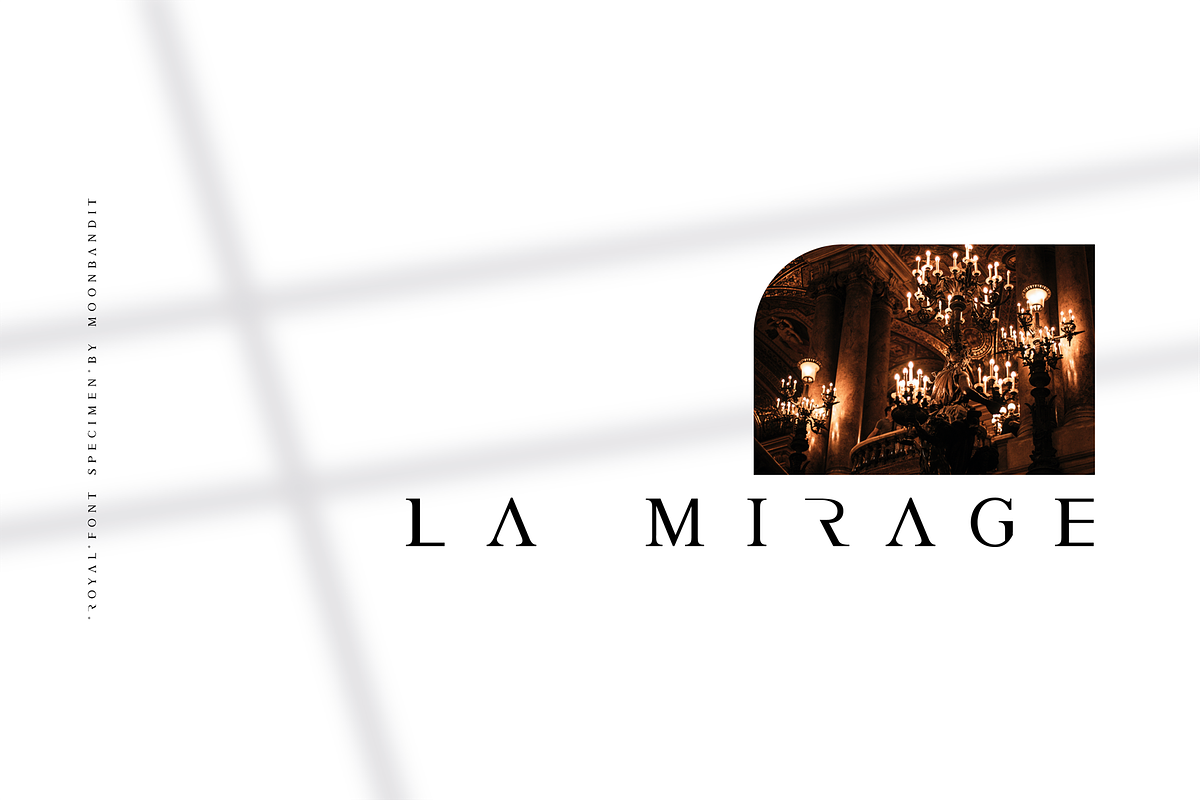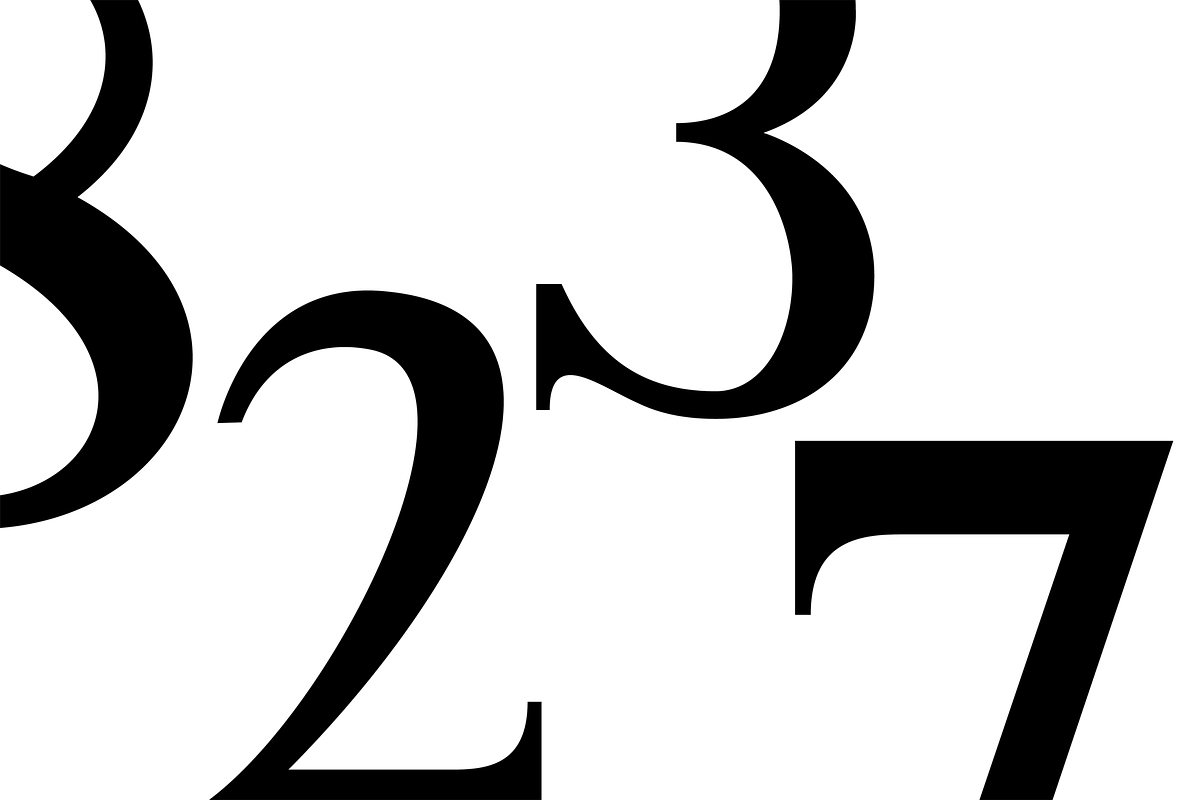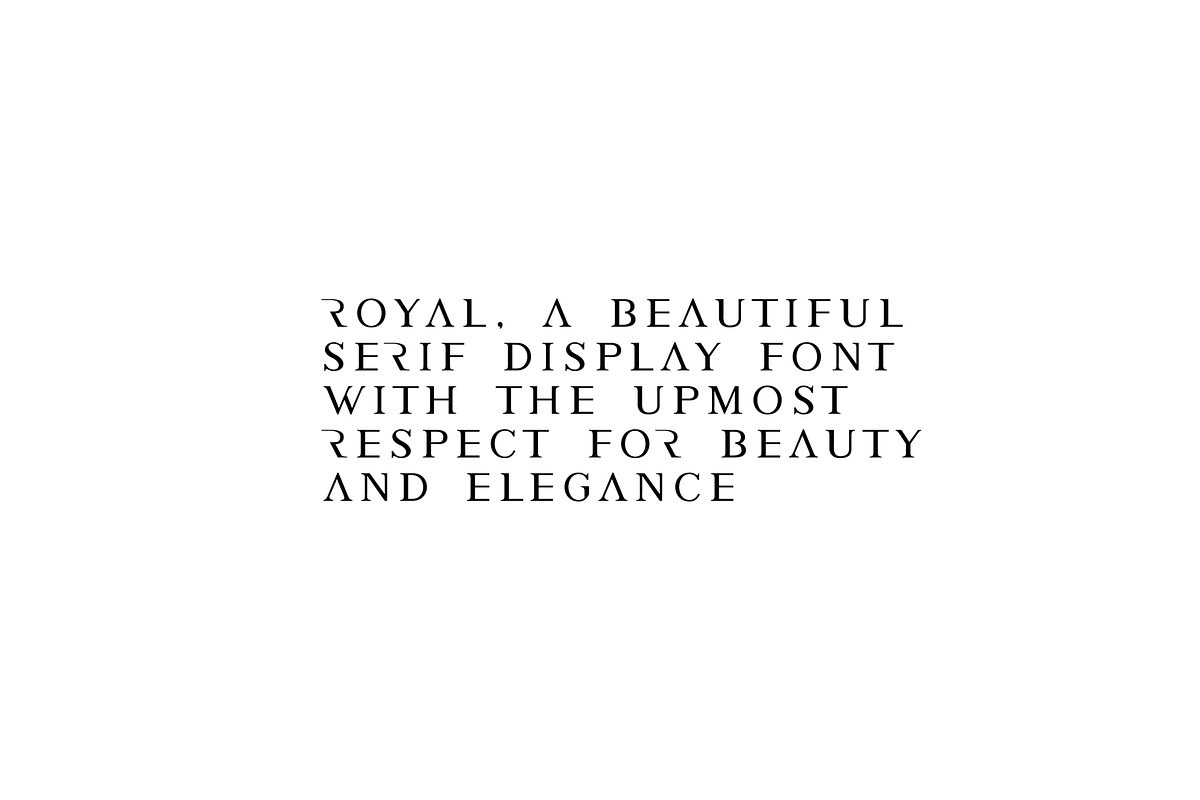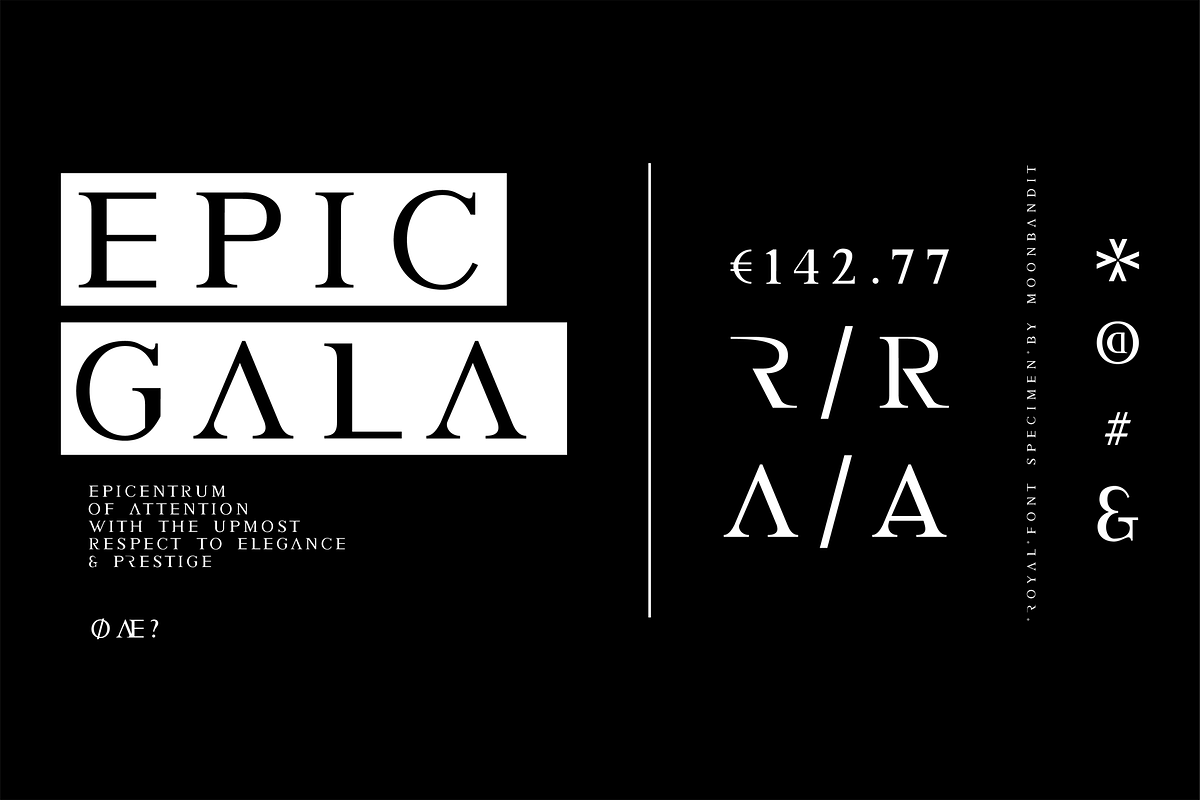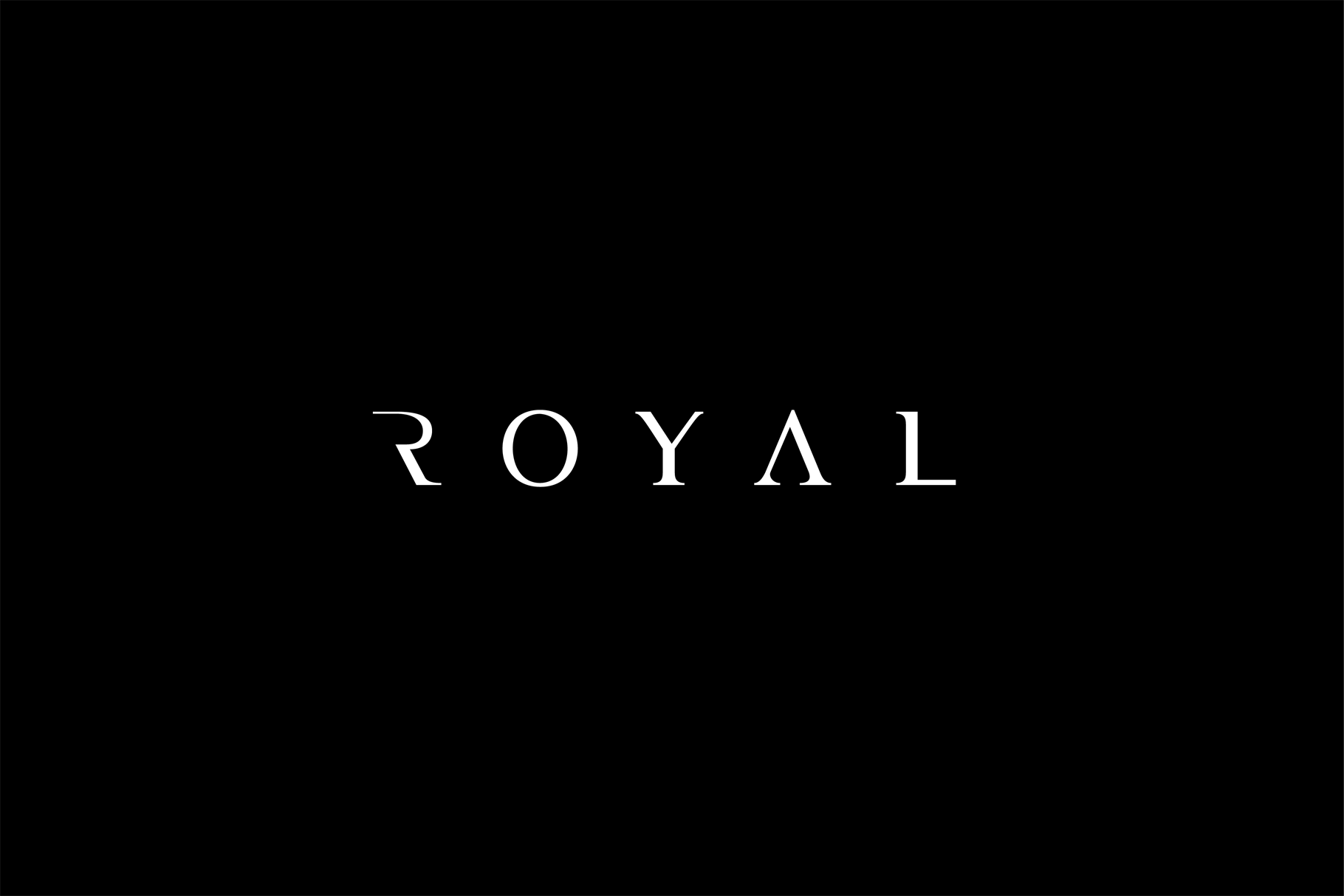
Royal - An elegant luxurious font
A luxurious high end elegant serif font. Crafted to emphasize and upscale your premium look with a twist.
Note Please keep in mind that this is a display font. It is intended to be used as a headings, title, branding, logo, wordmark and other application rather than typing a body text.